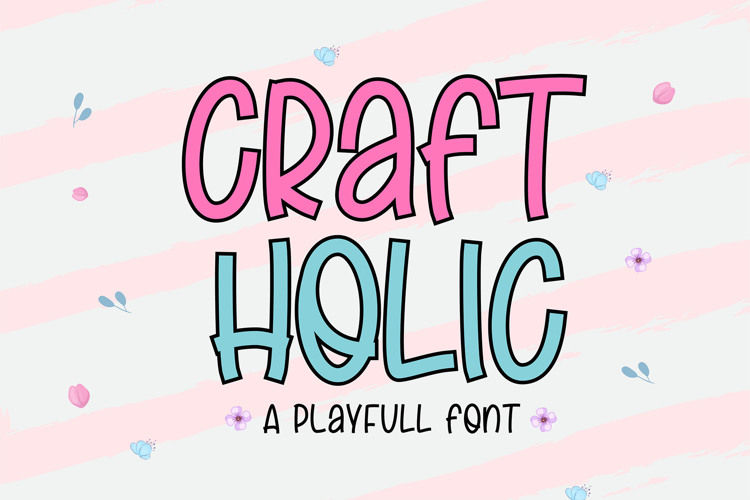
Craft Holic Font
About Craft Holic Font
Say hello for our best seller " Craft Holic " A Playfull Font
This is perfect for Crafting, Branding,
Logos, packaging, masterheads and more.